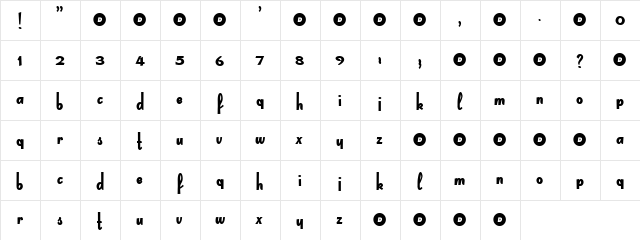
Dream Regular
Design Context for Dream Typeface
Dream is a composed and adaptable typeface that performs quietly and consistently across a wide range of design contexts.
Pro Tip: Pair Dream with a font of contrasting weight or personality to build a more expressive typographic hierarchy.